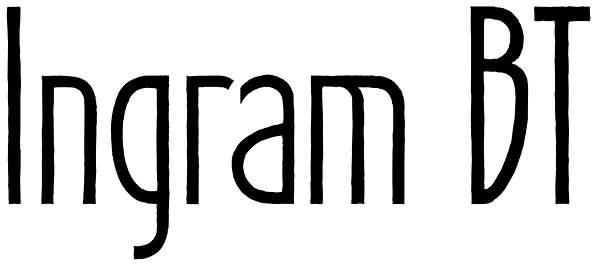
Ingram BT
Ingram BT might be described as Deco, or Arts & Crafts, in style. Created by Alex Marshall, it is a very condensed design with high-waisted uppercase glyphs that feature dots rather than straight lines for the middle hairlines. There are two sets of...